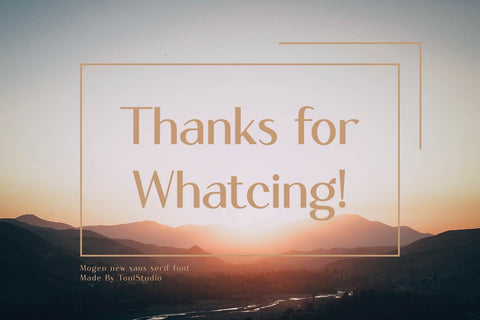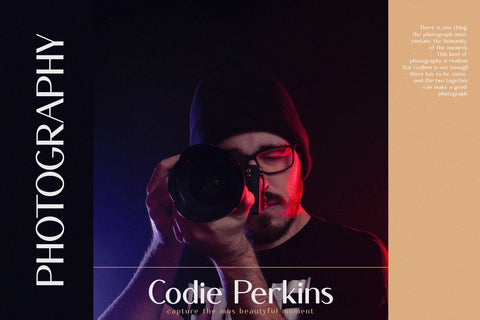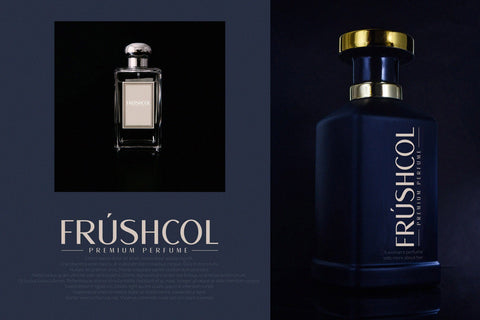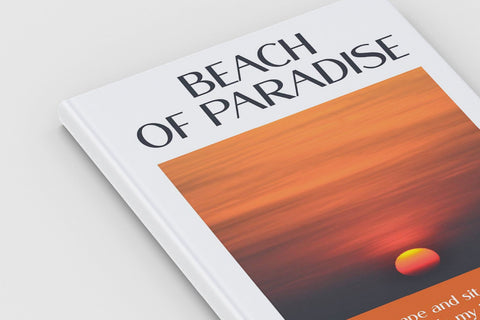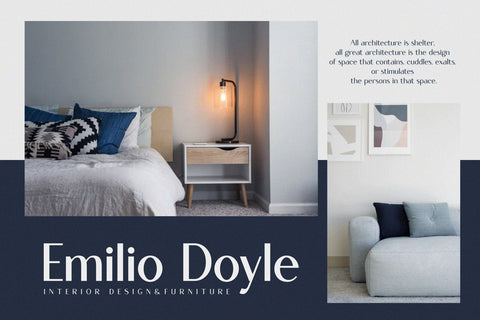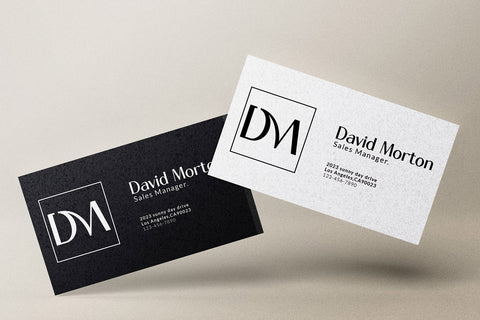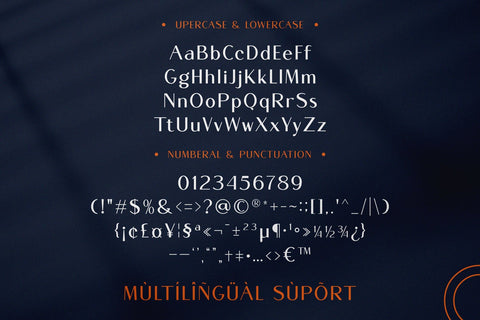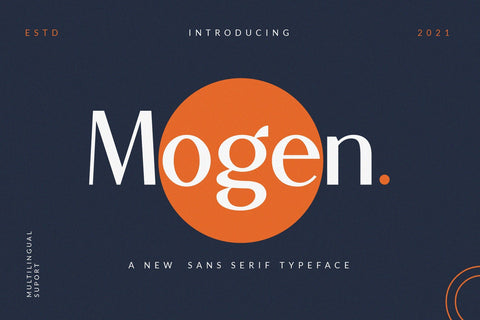
Mogen_a new sans serif typeface
Mogen, is a new modern typography that is Minimalist, Elegant and Beautiful. always gives a smooth and beautiful feel in any circumstances. The dimensions of the letters and common sense are modern and contemporary but also retain a subtle functional touch of rational structure. The result is a unique, unorthodox typeface that is well suited for graphic design applications ranging from editorial and corporate design to web and interaction design.
. Upercase
. Lowercase
. Numberal
. Punctuation
. Accent (Multilingual characters)